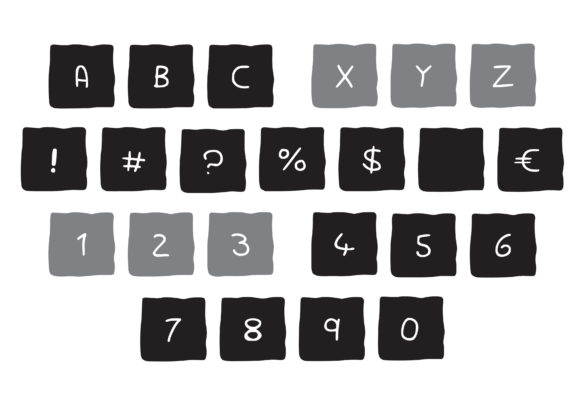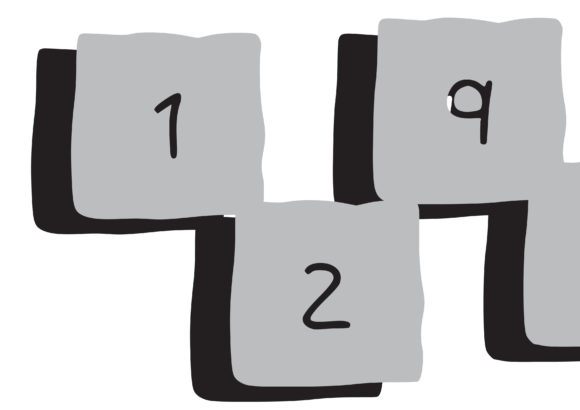
Introduction to Play Frame Font
As a designer, there’s nothing quite like the thrill of bringing a creative project to life. The moment when a concept clicks, and your imagination runs wild with possibilities. For many of us, this moment is what makes design so rewarding – the chance to express ourselves and connect with others through art. One of the key elements that can elevate a design from good to great is the right font. And when it comes to creating high-quality designs that exude joy and playfulness, the Play Frame Font is a valuable resource.
With its unique, fun style, the Play Frame Font is perfect for designers looking to add a touch of whimsy to their work. Whether you’re creating cartoon-related designs, children’s games, or simply want to add some personality to a quote or title, this font is a great choice. And the best part? It’s available for free download, making it an accessible design resource for designers of all levels.
Key Features of Play Frame Font
- High-quality design resource perfect for creative projects, offering a unique and stylish look.
- Features a transparent background, allowing for easy layering and customization in design software.
- Size: Supports a wide range of font sizes, from 8pt to 120pt, providing flexibility for various design requirements.
- Unique characteristics include its playful and modern aesthetic, making it an ideal choice for designers working on creative projects, such as social media graphics, logos, and advertising materials.
Honest Review: Play Frame Font
I recently had the chance to work with the Play Frame Font and I must say, it’s a great addition to any design resource collection. The high quality of this font makes it perfect for creative projects where you need a stylish yet versatile font.
- Transparent background, making it easy to layer with other design elements
- Wide range of characters and glyphs, perfect for international projects
- Some characters may not display correctly in certain software or operating systems
- Lack of bold or italic styles, which may limit its use in certain design contexts
Overall, I’m impressed with the Play Frame Font. It’s a solid choice for designers looking for a stylish and versatile font for their creative projects. While it may not be perfect, it’s definitely worth considering for your next design project.
For optimal results, use the Play Frame Font in conjunction with other high-quality design elements. Experiment with different font sizes, styles, and colors to create a unique and eye-catching design.
The Play Frame Font is ideal for a variety of creative projects, including social media graphics, marketing materials, and presentations. Its versatility and high-quality design make it a valuable asset for any designer or creative professional.